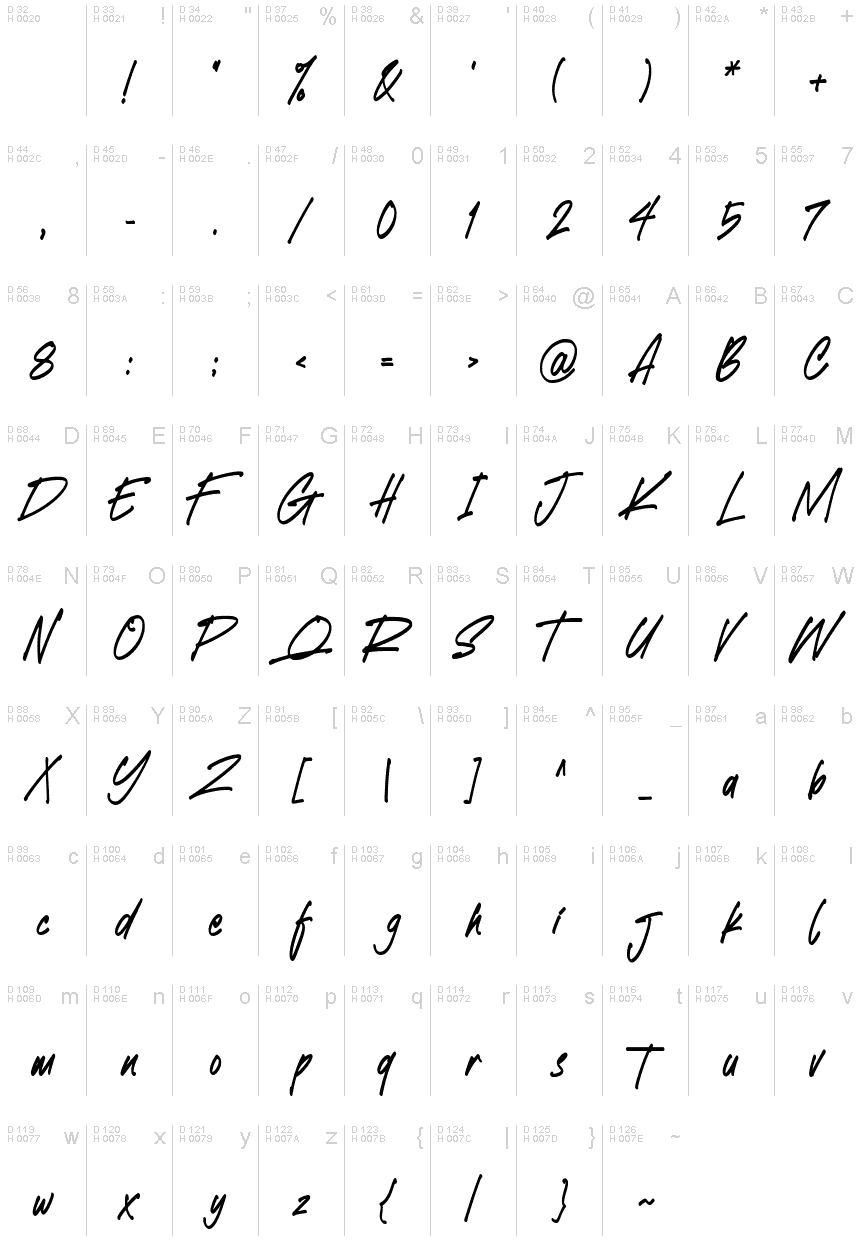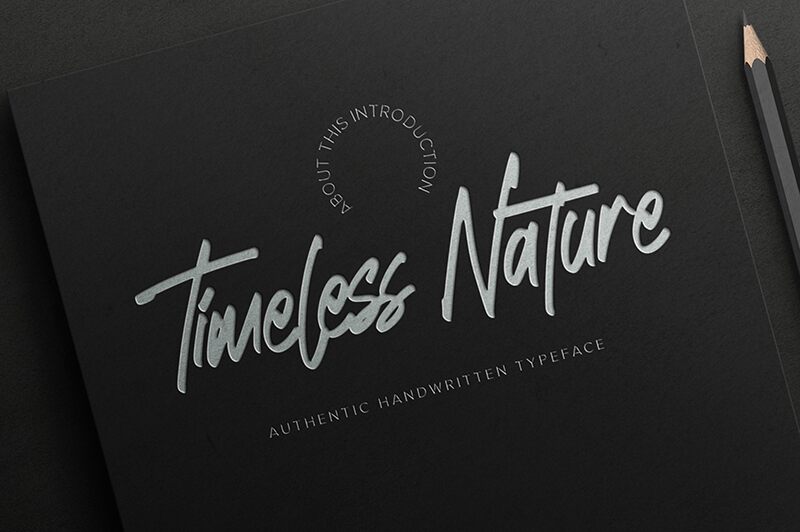
Timeless Nature
Timeless Nature emerges as an authentic handwritten typeface, crafted with a playful yet strong character by the skilled hands at Gassstype. This semi-light font embodies the spontaneity of quick brush strokes, transformed meticulously from Procreate sketches into a vector format that maintains its genuine, organic feel.
The Timeless Nature font is more than just letters on a page; it's an invitation to inject personality and warmth into your creative endeavors. With its natural look and the ability to activate unique Ligatures and Alternates glyphs via the OpenType panel, this typeface becomes an invaluable asset for diverse design projects. From branding campaigns that demand an intimate touch to logo designs, quotes, product packaging, or any project seeking a cool display font – Timeless Nature is designed to elevate your work with its versatile and inviting style.